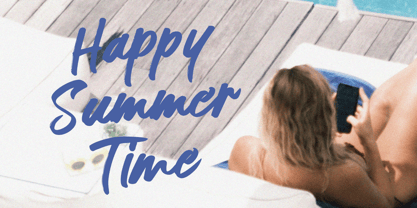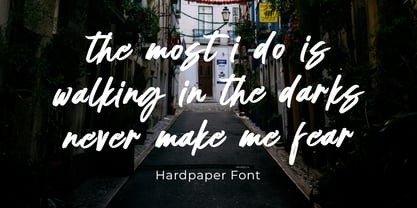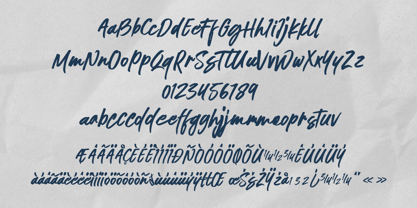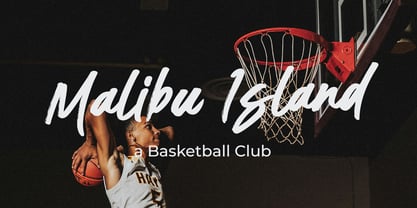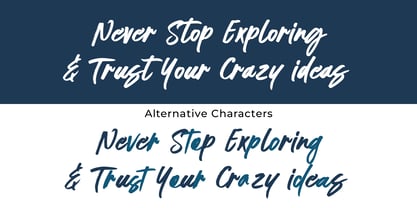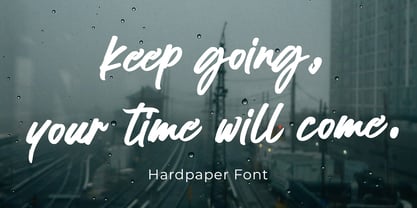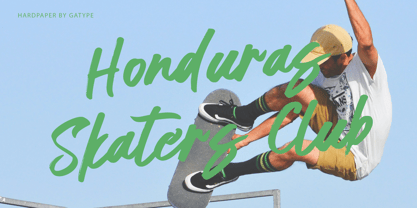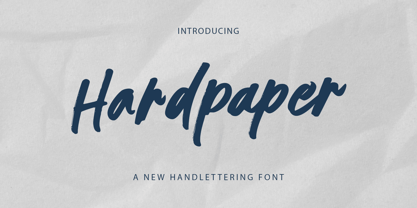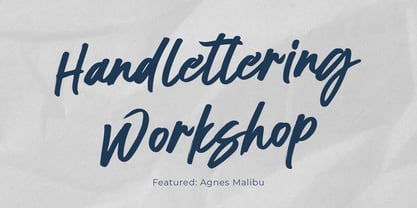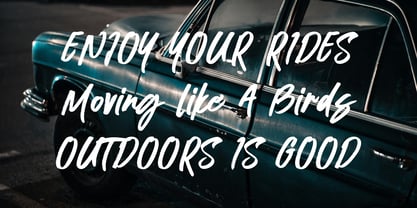
Hardpaper
by Gatype
The Hardpaper Font Family was designed by khaidir and published by Gatype. Hardpaper contains 1 styles. More about this family
Hardpaper is a brush-style font designed to mimic hand-painted strokes made with a brush or textured marker. It has a casual, expressive, and slightly rough feel—like ink applied unevenly to paper.
Key characteristics of Hardpaper:
The strokes appear imperfect, as if they were made with quick, hand-drawn movements. It gives a personal, relaxed, and creative feel.
It exhibits variations in pressure similar to handwriting.
It's suitable for bold, informal designs.
This font is commonly used for:
Posters or music-related designs
Creative branding (coffee shops, clothing, streetwear)
Social media quotes or artwork
Vintage or handmade designs
Overall, this font conveys a bold, artistic, and free-flowing feel, rather than a formal or clean feel.
Designers: khaidir
Foundry: Gatype